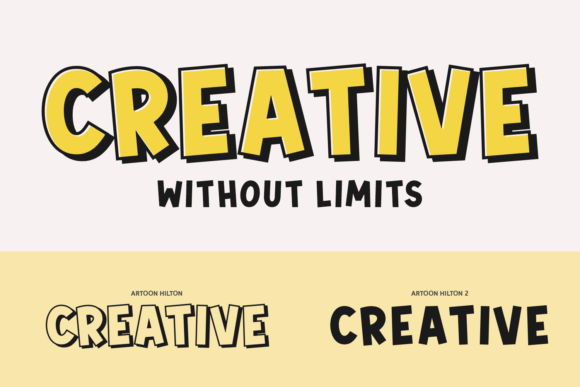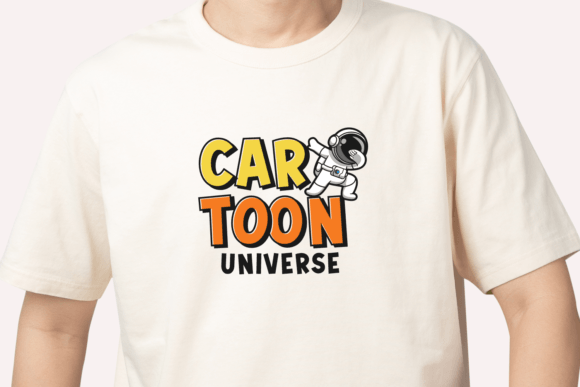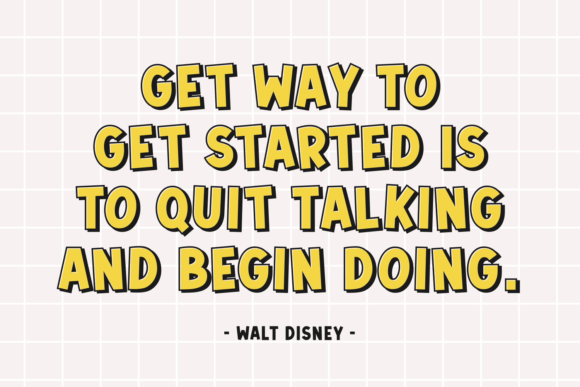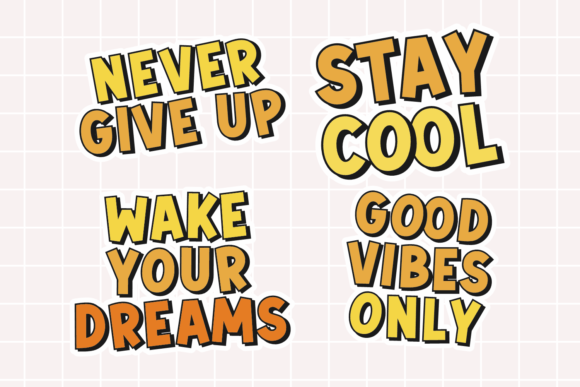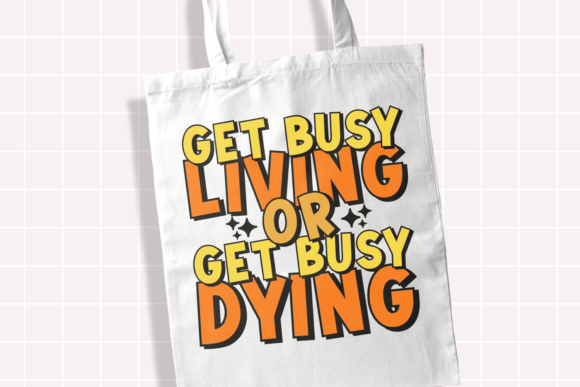
Introducing Artoon Hilton: The Ultimate Playful Font for Creative Projects
Are you tired of using the same old fonts for your designs? Do you want to add a touch of fun and excitement to your projects? Look no further than Artoon Hilton, a playful and vibrant all-caps bold font that’s sure to bring joy and creativity to your work. In this article, we’ll dive into the world of Artoon Hilton, exploring its unique features, uses, and benefits for designers and crafters.
The Inspiration Behind Artoon Hilton
Artoon Hilton is a font that’s all about embracing fun and creativity. Its whimsical shapes and lively curves are designed to evoke a sense of playfulness and excitement, making it perfect for projects that require a bold and eye-catching approach. Whether you’re working on a children’s book, a poster, or a social media graphic, Artoon Hilton is the perfect choice for adding a splash of amusement to your design.
Key Features of Artoon Hilton
So, what makes Artoon Hilton so special? Here are just a few of its key features:
- All-caps bold font: Artoon Hilton is an all-caps bold font that’s designed to make a statement. Its bold and chunky letters are perfect for creating eye-catching titles and headings.
- Whimsical shapes and lively curves: The font features whimsical shapes and lively curves that add a touch of playfulness and fun to your designs.
- Perfect for creative projects: Artoon Hilton is ideal for creative projects that require a bold and eye-catching approach, such as children’s books, posters, social media graphics, and more.
Uses for Artoon Hilton
Artoon Hilton is a versatile font that can be used in a variety of creative projects. Here are just a few ideas to get you started:
- Children’s books and educational materials: Artoon Hilton is perfect for creating engaging and interactive children’s books, educational materials, and activity sheets.
- Posters and flyers: The font is ideal for creating eye-catching posters and flyers that grab attention and make a statement.
- Social media graphics: Artoon Hilton can be used to create fun and engaging social media graphics, such as Facebook posts, Instagram stories, and Twitter headers.
- Crafting and DIY projects: The font is also perfect for crafters and DIY enthusiasts who want to add a personal touch to their projects, such as handmade cards, scrapbook pages, and craft tutorials.
Benefits of Using Artoon Hilton
So, why should you choose Artoon Hilton for your next project? Here are just a few benefits of using this playful and vibrant font:
- Adds a touch of fun and creativity: Artoon Hilton brings a sense of fun and creativity to your designs, making them more engaging and eye-catching.
- Perfect for creative projects: The font is ideal for creative projects that require a bold and eye-catching approach.
- Easy to read: Despite its playful and whimsical design, Artoon Hilton is easy to read and understand, making it perfect for titles, headings, and other design elements.
Tips for Using Artoon Hilton
Here are a few tips for getting the most out of Artoon Hilton:
- Use it sparingly: While Artoon Hilton is a fun and playful font, it’s best used sparingly to avoid overwhelming your design.
- Pair it with other fonts: Consider pairing Artoon Hilton with other fonts to create a unique and visually appealing design.
- Experiment with colors and textures: Don’t be afraid to experiment with different colors and textures to add depth and interest to your design.
| Font Name | Artoon Hilton Font |
| Author | Faris (7NTypes) |
Artoon Hilton is a playful and vibrant all-caps bold font that’s perfect for adding a touch of fun and creativity to your designs. With its whimsical shapes and lively curves, this font is ideal for creative projects that require a bold and eye-catching approach. Whether you’re a designer, crafter, or DIY enthusiast, Artoon Hilton is the perfect choice for bringing joy and excitement to your next project.